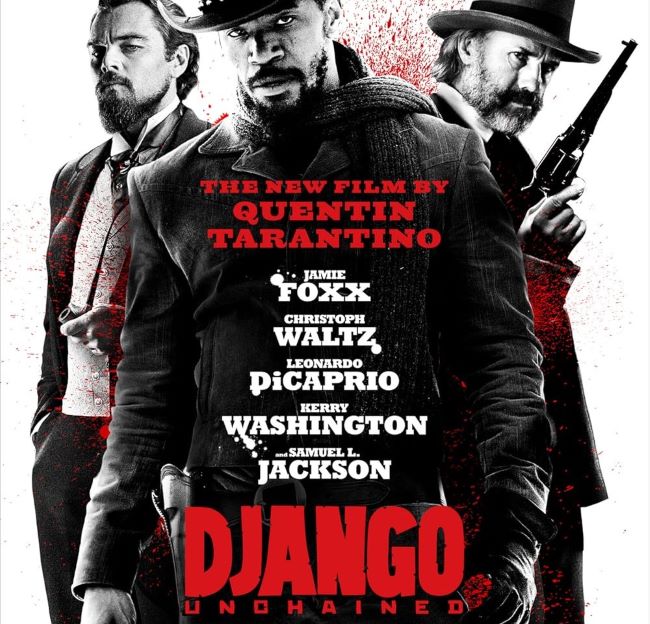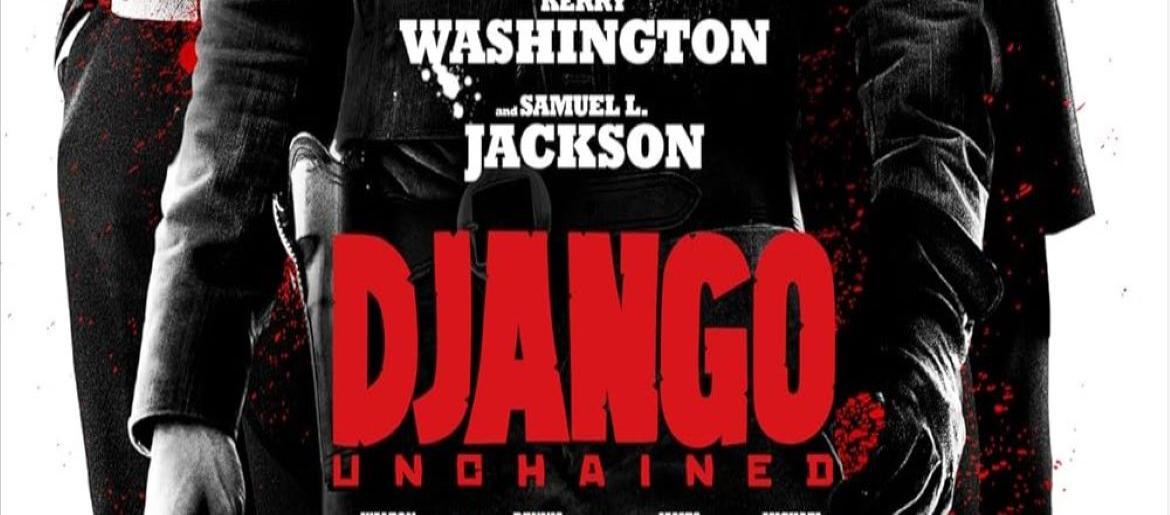
Django Unchained Font
Django Unchained Font explodes across the frontier with bullet-riddled letterforms that spit vengeance and liberation through every distressed edge. This typography doesn’t whisper—it thunders like gunfire at high noon, channeling spaghetti western grit through Tarantino’s blood-splattered lens, transforming letters into weapons of righteous fury that refuse apology or compromise.
On the official poster and title sequence, the typography stands out with its heavy slab-serif design and distressed edges, giving it a weathered, old-west feel. This choice of style wasn’t accidental—it reflects the historical backdrop of the film while keeping Tarantino’s signature flair for drama and spectacle.
While the exact typeface was tailored for the film Django Ink, made by Sally Menke for Django Unchained, there are strong replicas and alternatives available.
Django Unchained Font dominates revenge tale covers, outlaw whiskey branding, western film festivals, and anti-establishment graphics—where typography becomes emancipation proclamation written in gunsmoke and defiance.